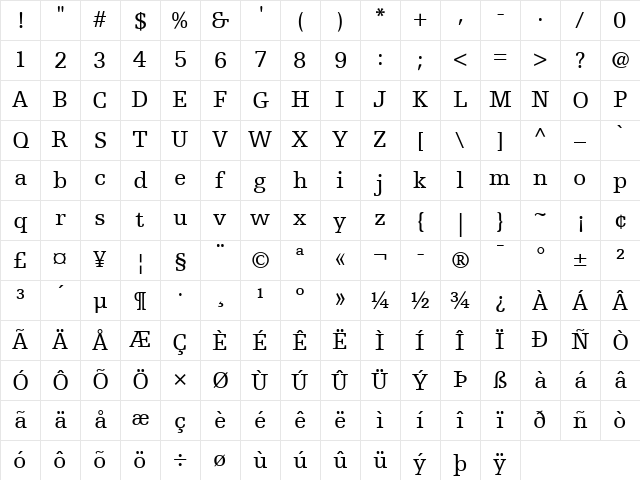
EgyptienneF LT Roman Regular Free Font
EgyptienneF LT Roman Regular
Design Context for EgyptienneF LT Roman
EgyptienneF LT Roman is a composed and adaptable typeface that performs quietly and consistently across a wide range of design contexts. Its slender proportions lend an understated elegance to any composition.